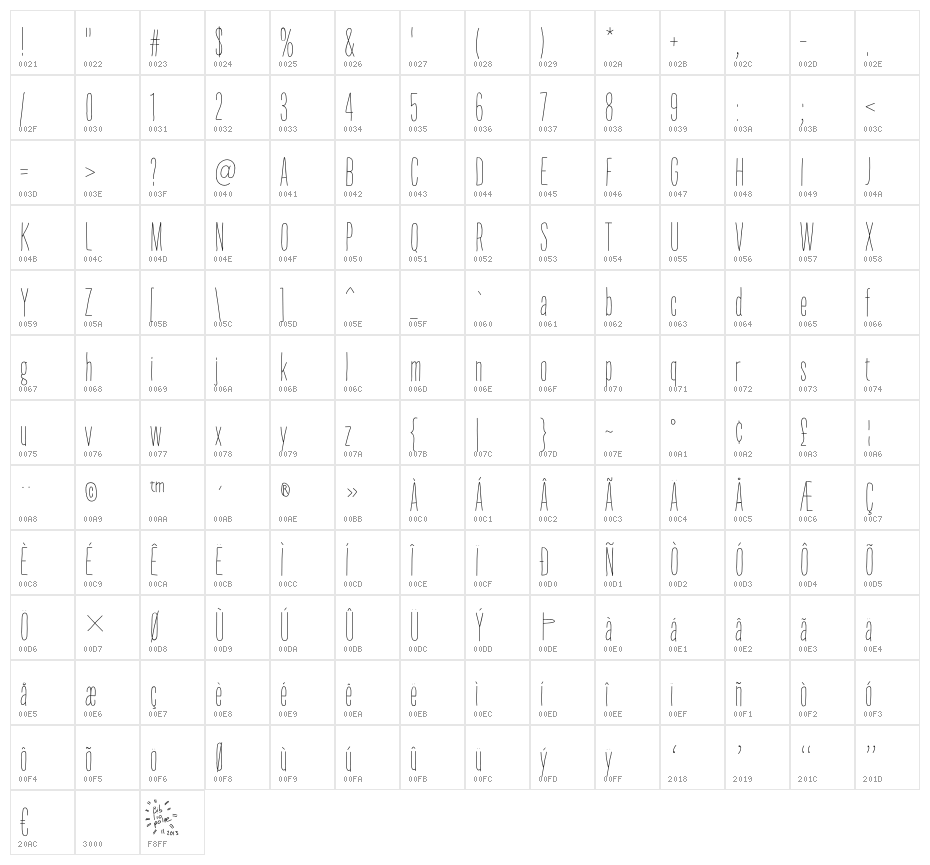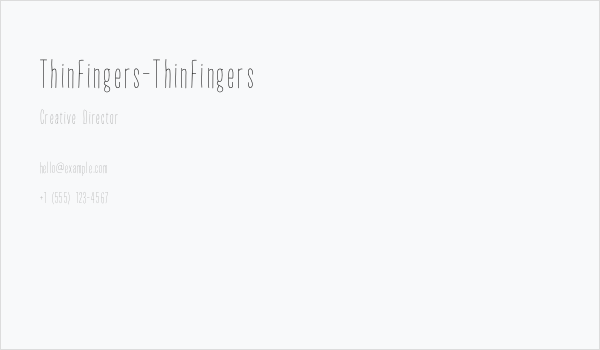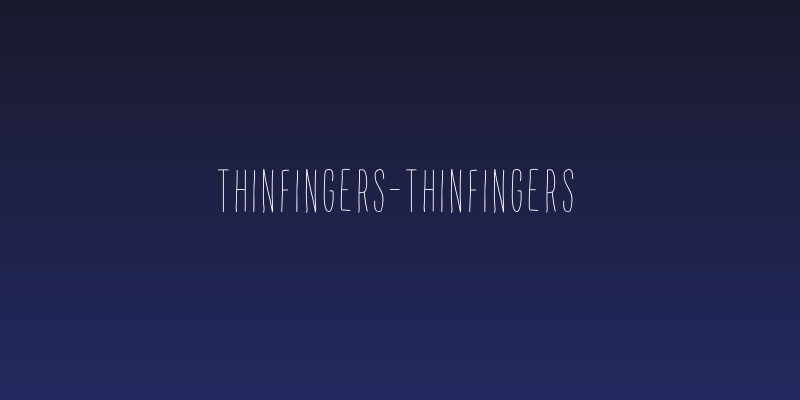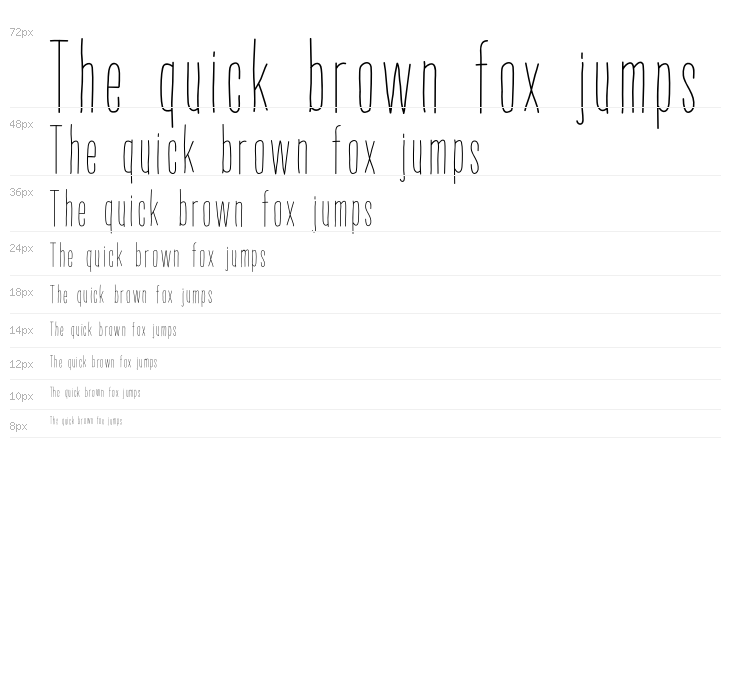
ThinFingers-ThinFingers Font
ThinFingers-ThinFingers Description
This font features an elegant, hand-drawn style with elongated, thin strokes that give it a delicate and airy appearance. The characters are tall and narrow, with a consistent line weight that adds to its refined aesthetic. The uppercase letters are particularly elongated, while the lowercase letters maintain a more traditional height, creating a pleasing contrast. The numerals and special characters follow the same slender and elongated design, ensuring a cohesive look across all text. This font's unique style makes it stand out, offering a modern yet whimsical touch.